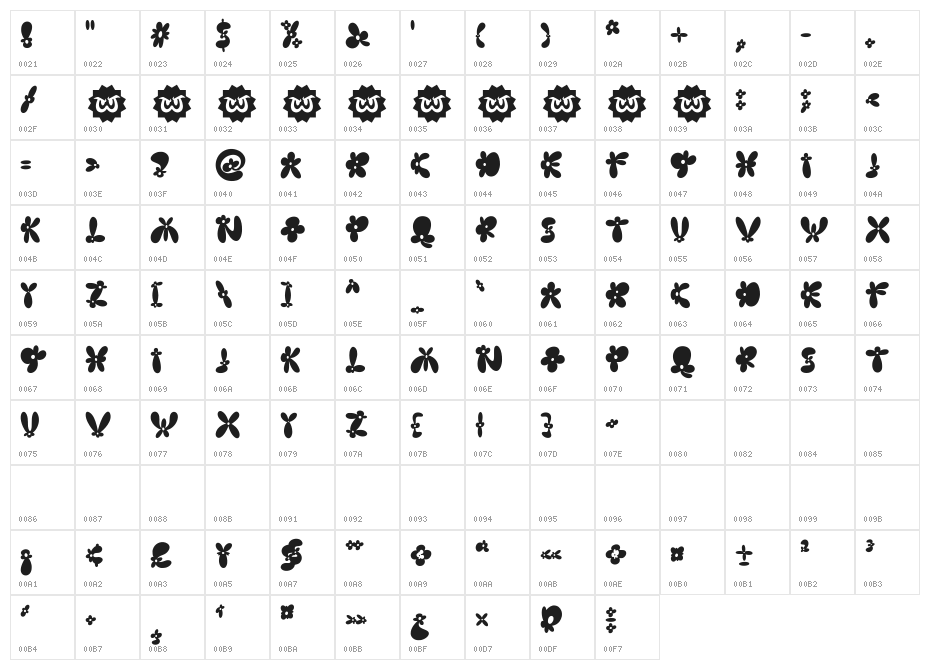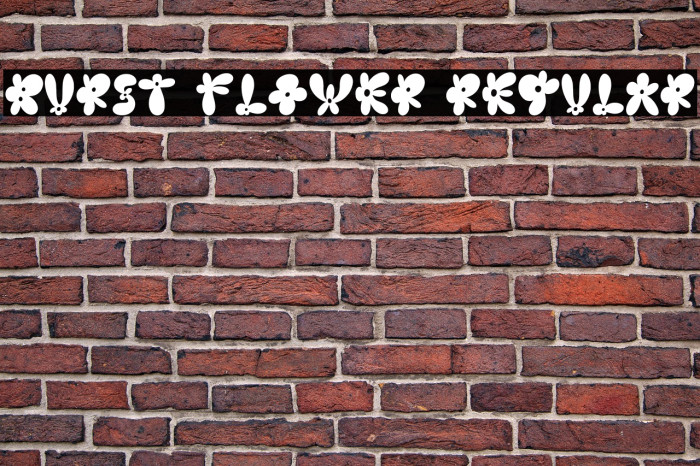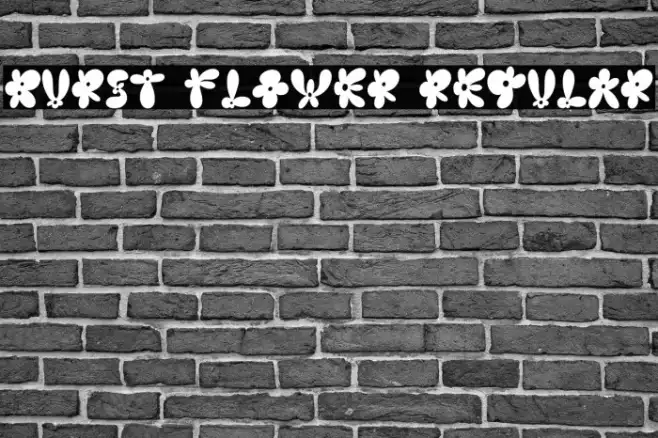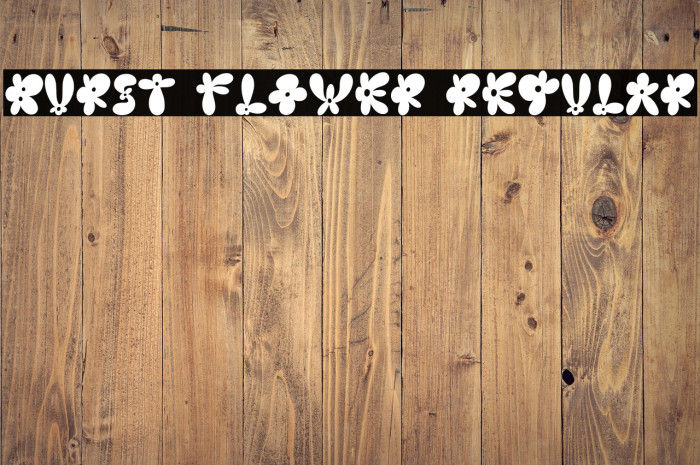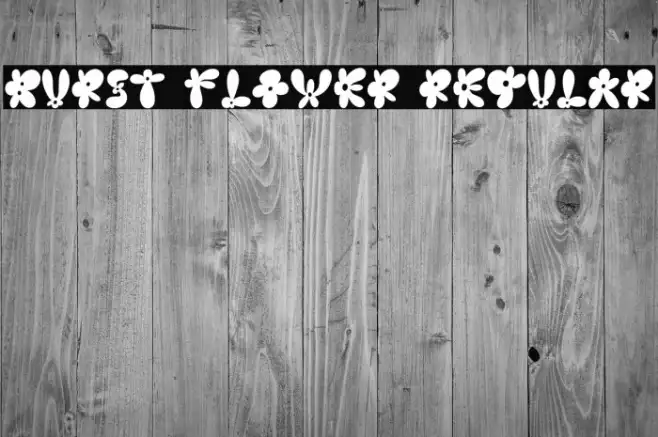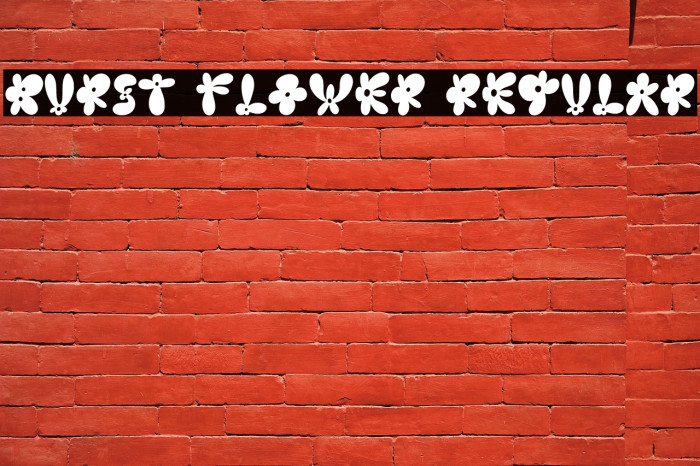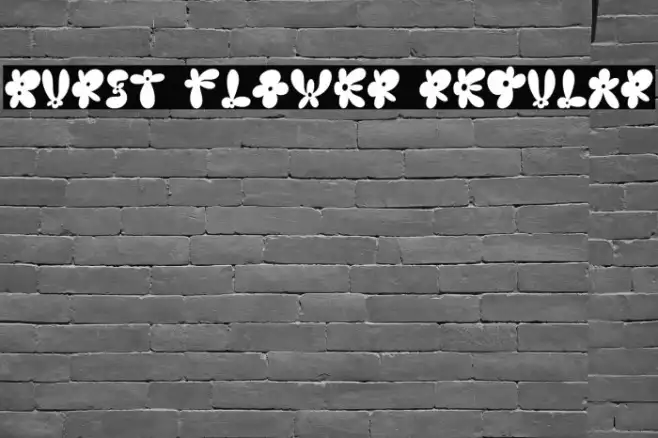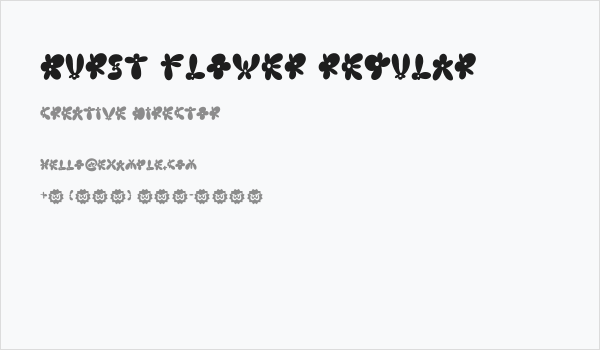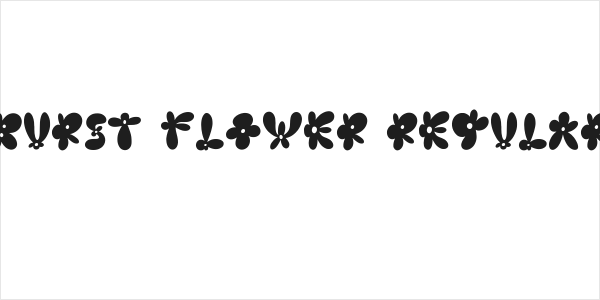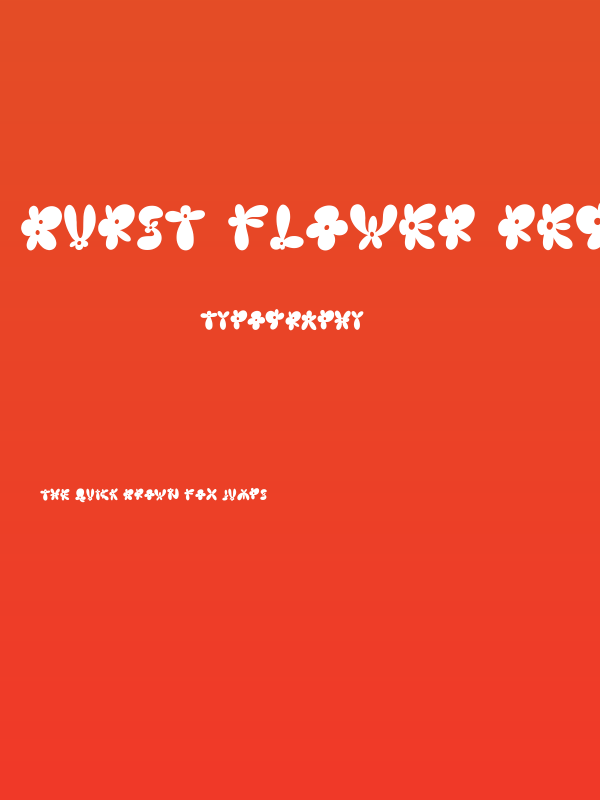
Burst Flower Regular Font
Burst Flower Regular Description
This playful and whimsical font features characters designed with floral and organic shapes, giving each letter a unique and decorative appearance. The bold and rounded forms resemble petals and leaves, creating a lively and cheerful aesthetic. The font's distinct style makes it stand out, with each character appearing as a small piece of art. The overall design is highly decorative, making it suitable for creative and artistic projects. The characters are evenly spaced, ensuring readability despite their intricate design.
| Proposed Projects | Ideal for children's books, greeting cards, posters, and any project requiring a fun and artistic touch. |